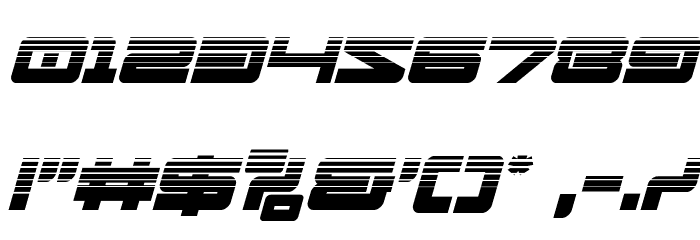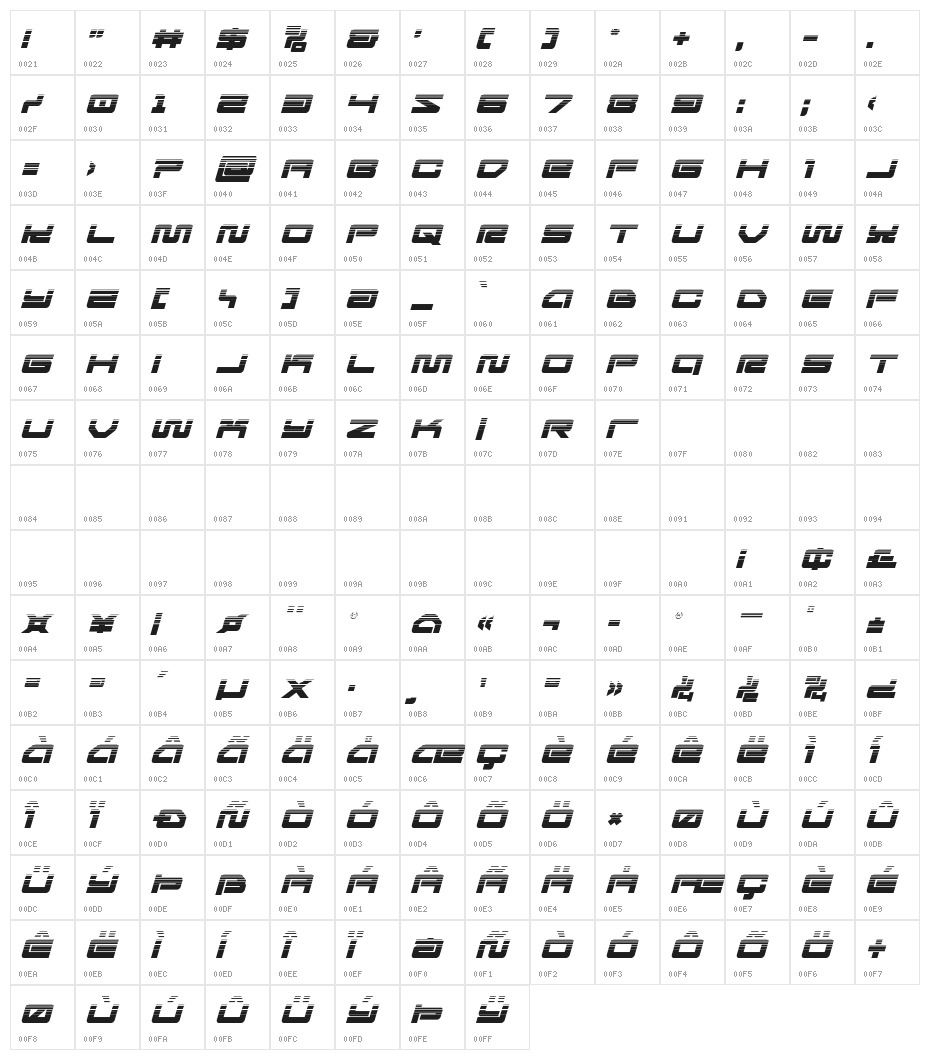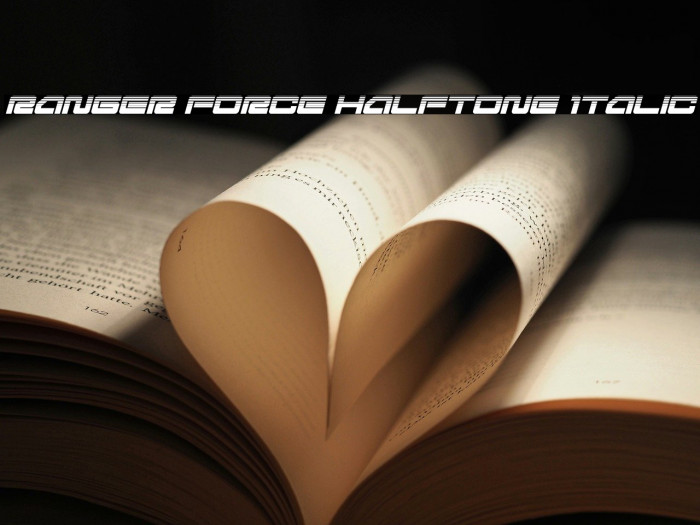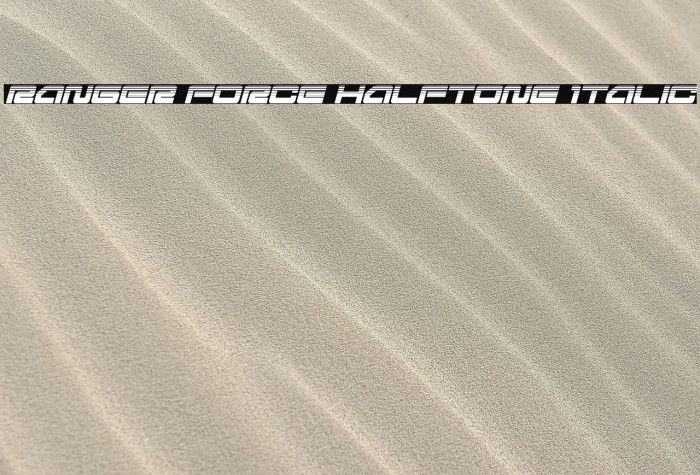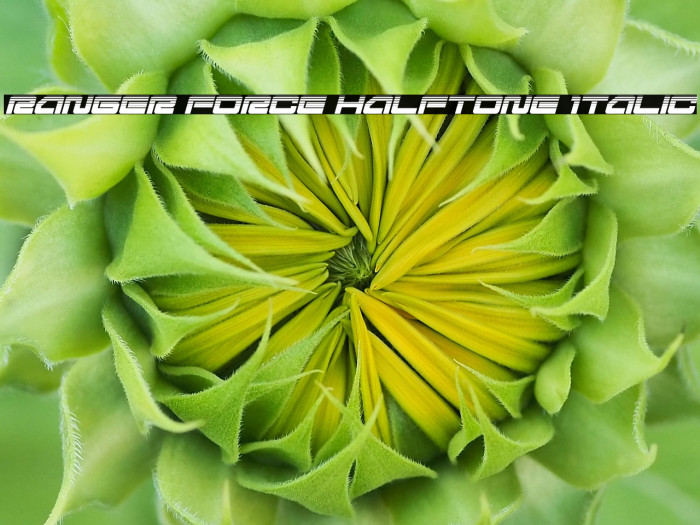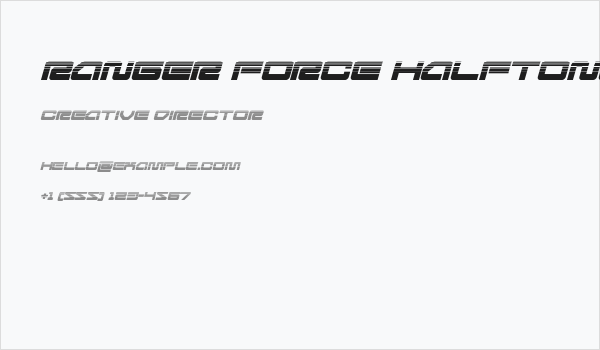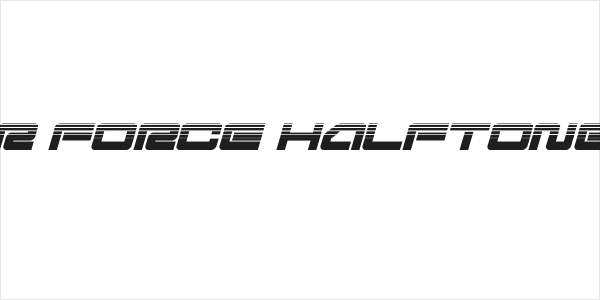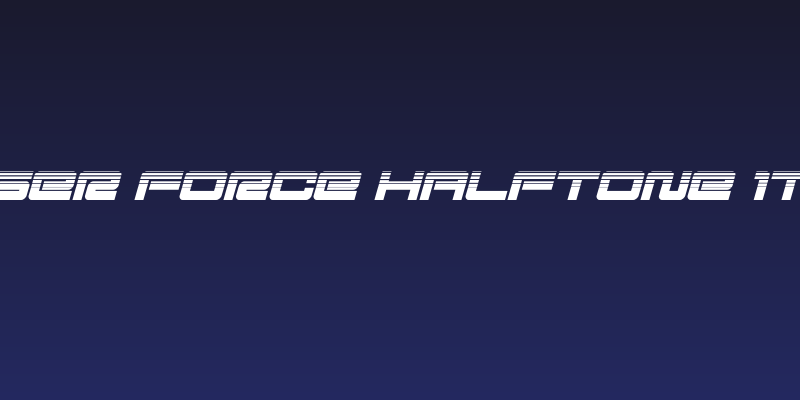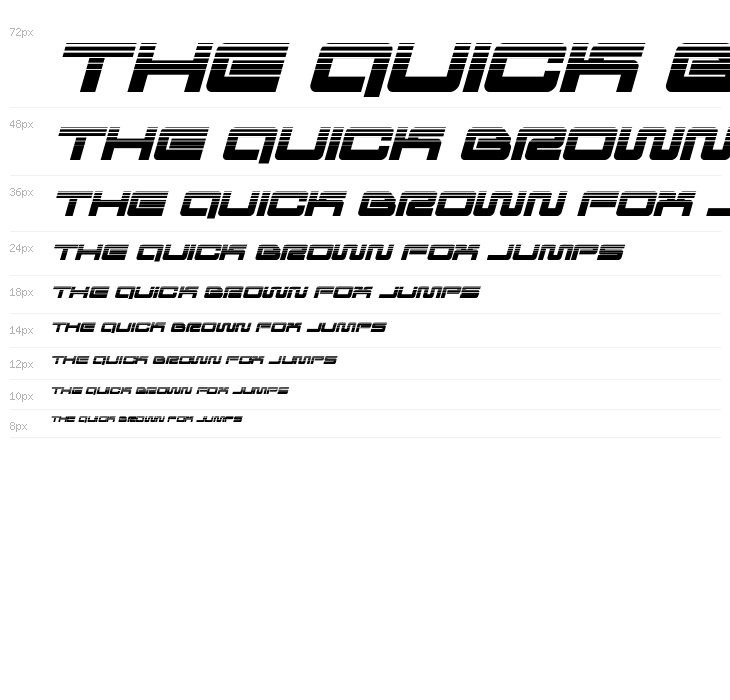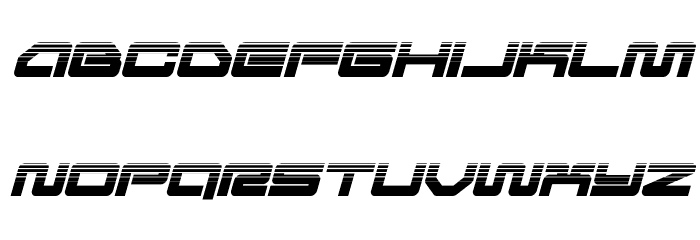
Ranger Force Halftone Italic Font
Ranger Force Halftone Italic Description
This font features a bold, futuristic design with a halftone effect that gives it a dynamic and energetic appearance. The characters are italicized, adding a sense of motion and speed. The uppercase and lowercase letters maintain a consistent style, with sharp angles and clean lines. The numbers and special characters follow the same design principles, ensuring uniformity across all glyphs. The halftone pattern within each character adds depth and texture, making it ideal for projects that require a modern and edgy look.
| Proposed Projects | Ideal for sci-fi themed designs, video game titles, tech branding, and dynamic posters. |